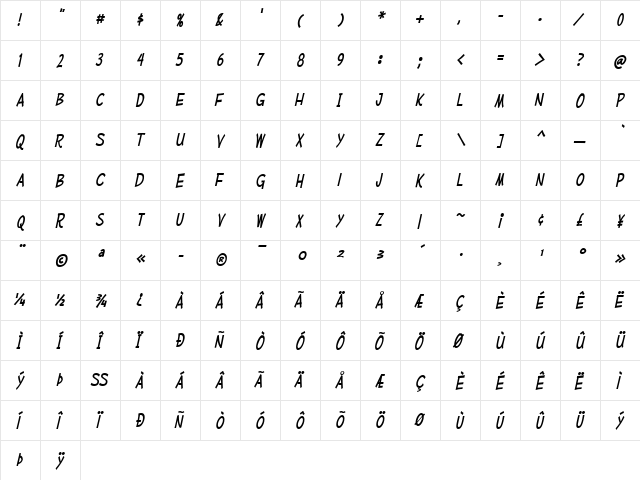
Mufferaw Cnd Italic
Design Context for Mufferaw Cnd Typeface
Mufferaw Cnd offers clean, dependable letterforms without strong stylistic allegiance, making it a practical choice for designers who need flexibility. The slanted form adds forward momentum and visual energy.
Pro Tip: Use Mufferaw Cnd for emphasis, pull quotes, and subheadings where its slanted energy can add rhythm to the layout.